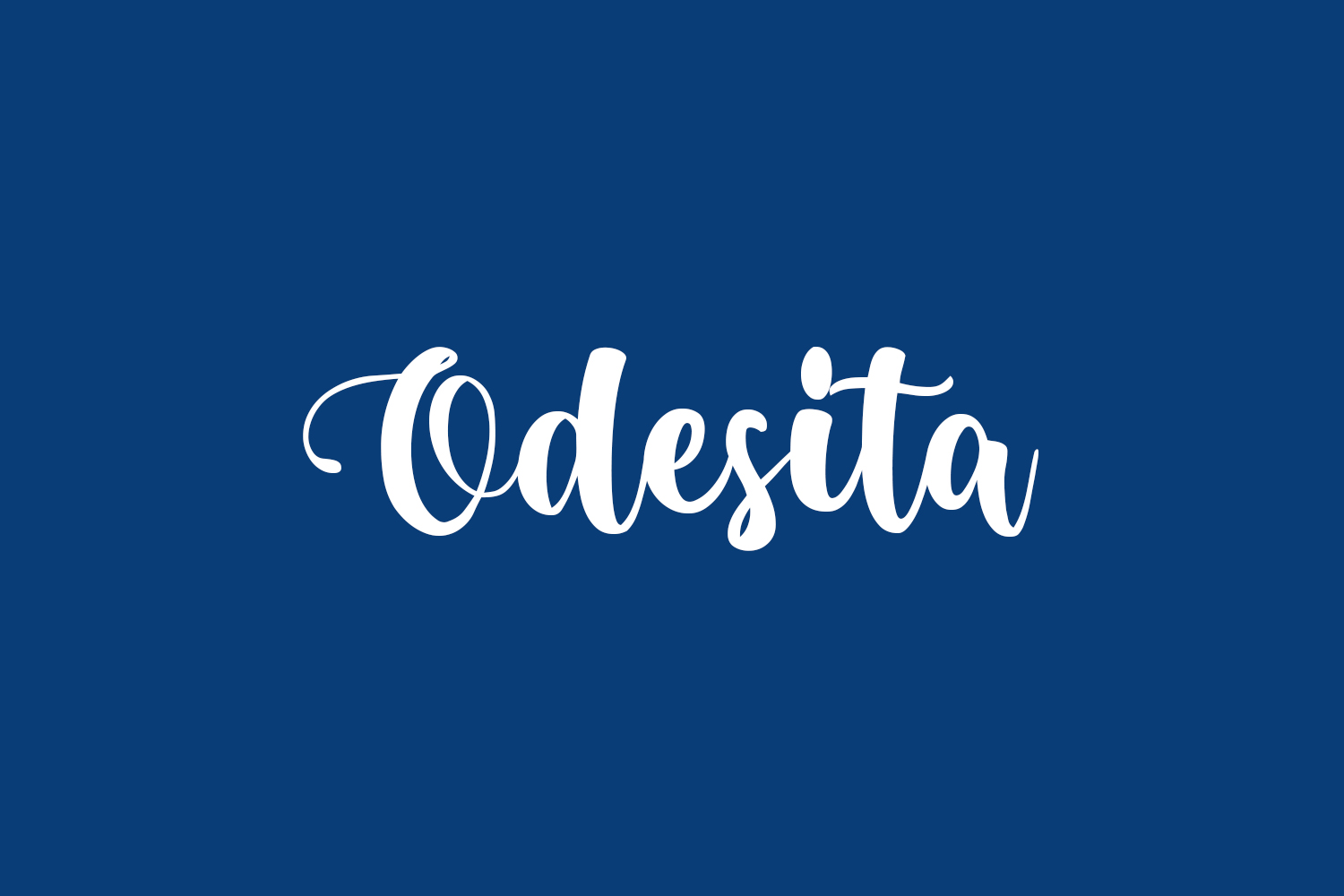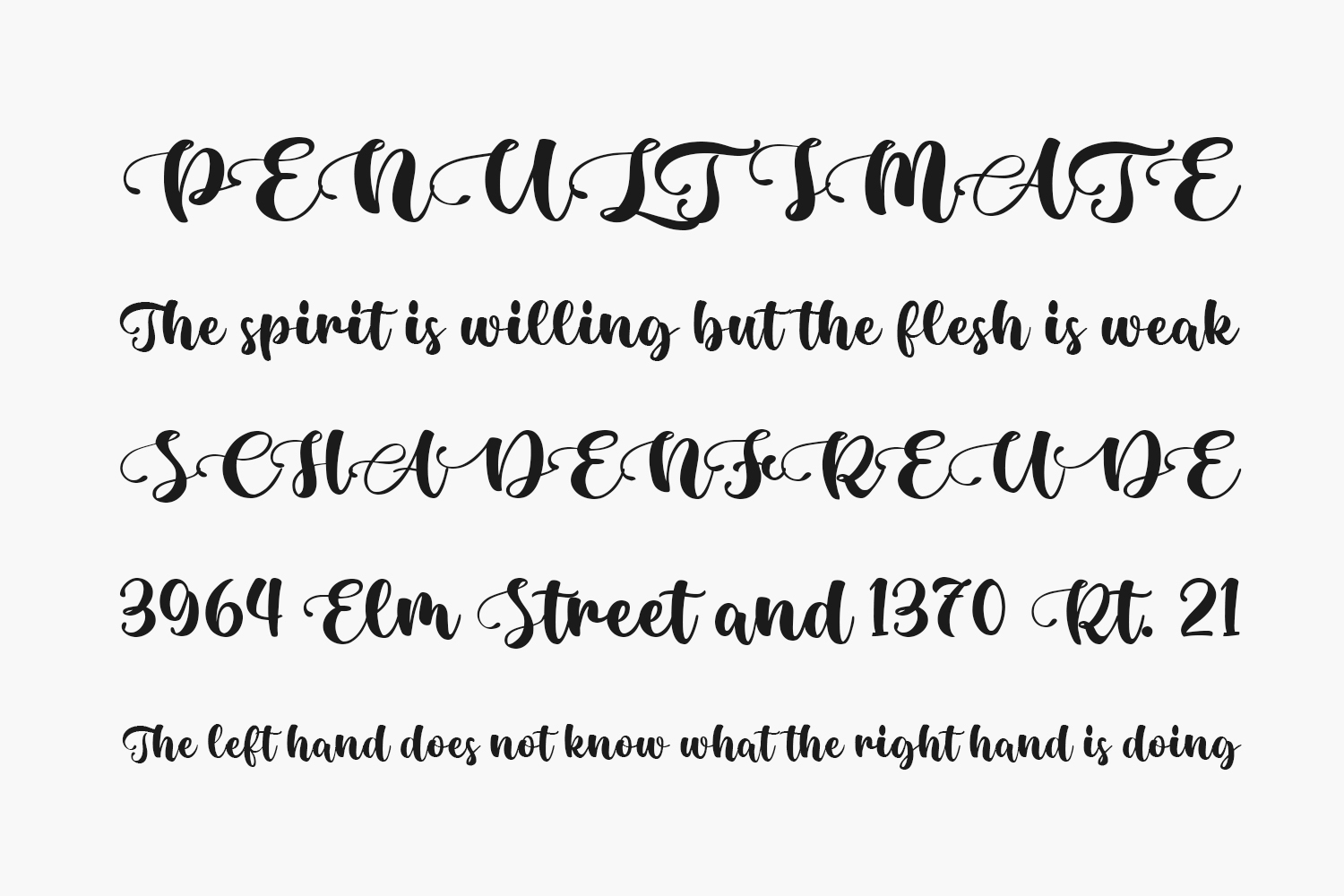
Odesita Free Font is a dazzling script font. This font is neatly crafted, highly detailed, and it is also PUA encoded. This means that you can access all glyphs and swashes with ease. Odesita Free Font was designed by Bangkit Tri Setiadi and is free for personal use only. Please purchase the full version for commercial use.